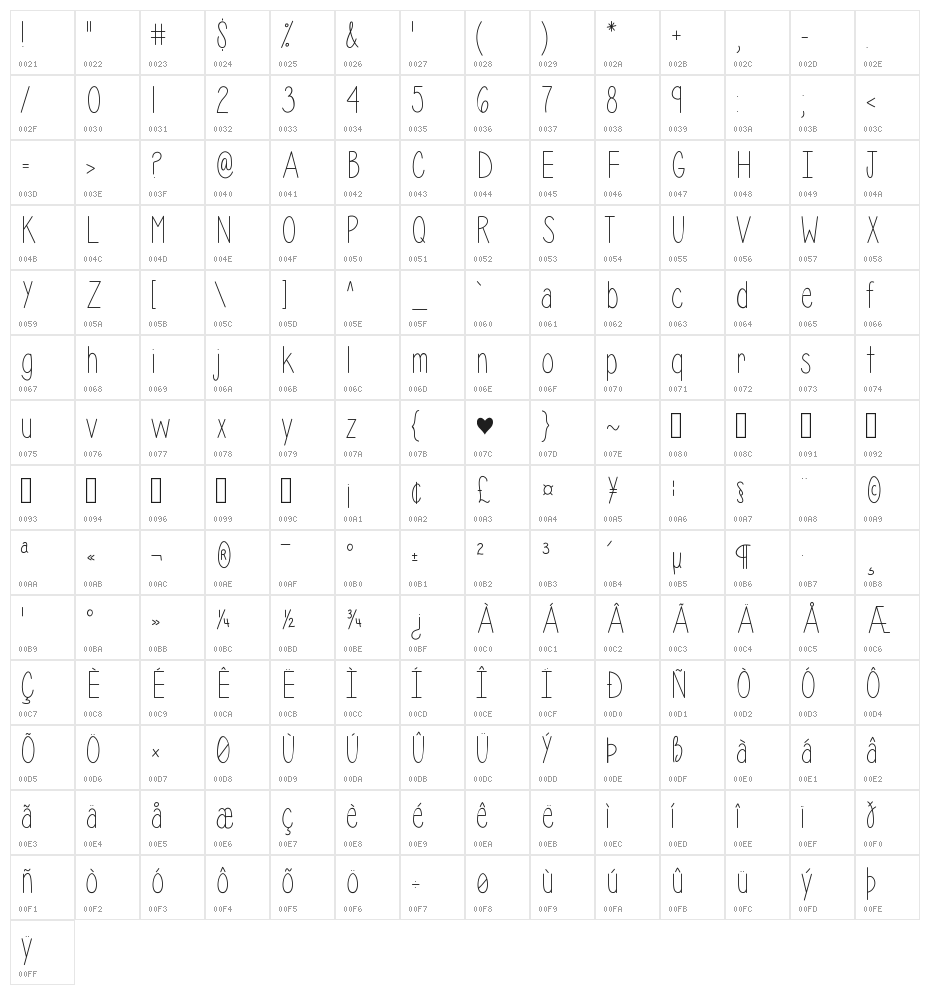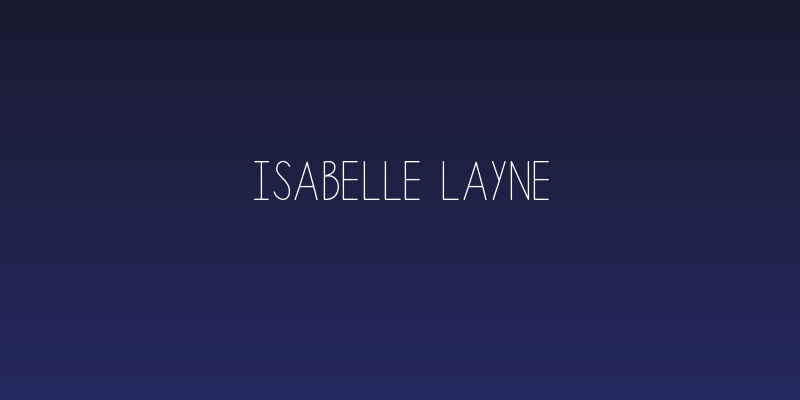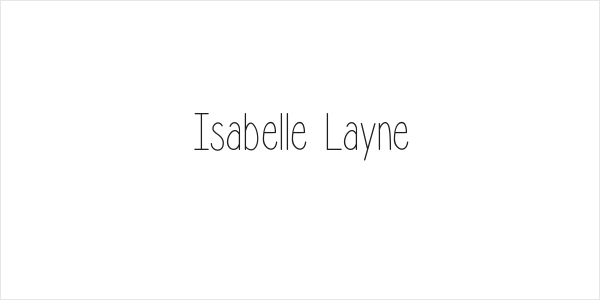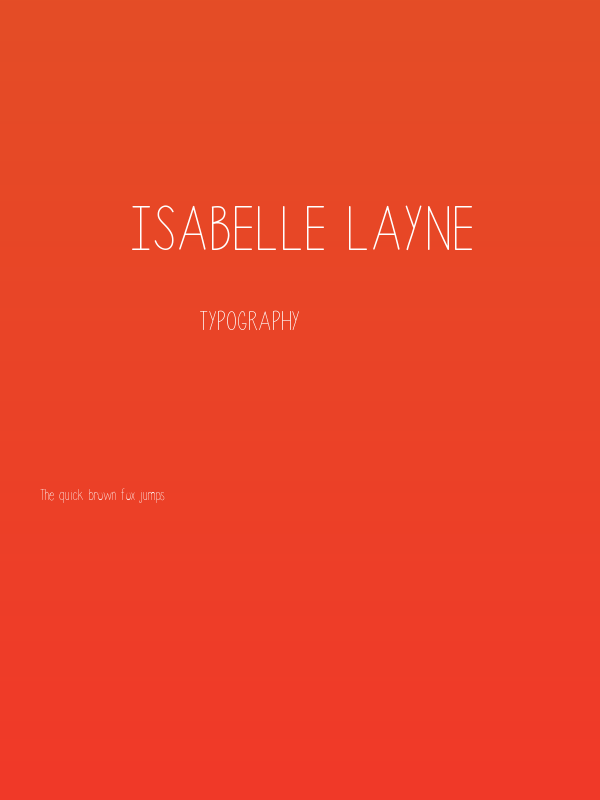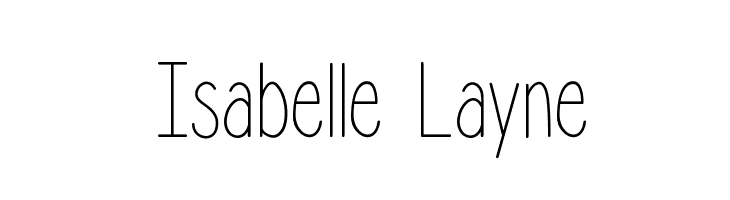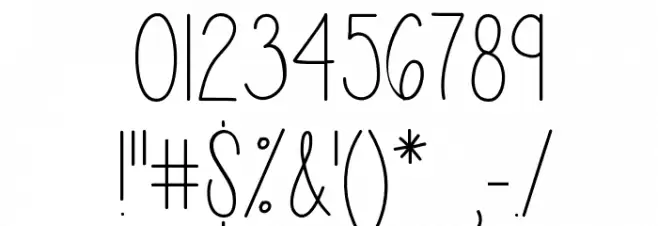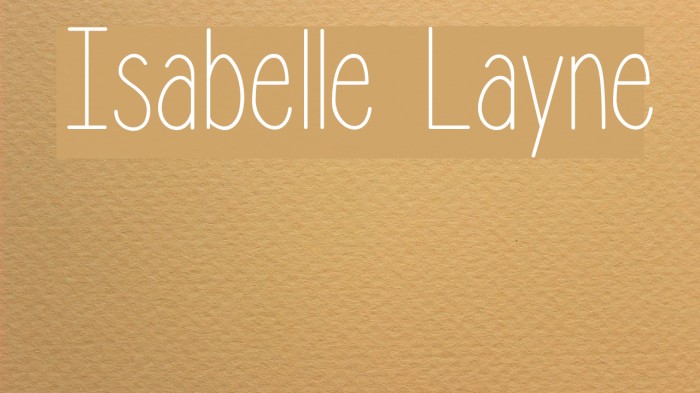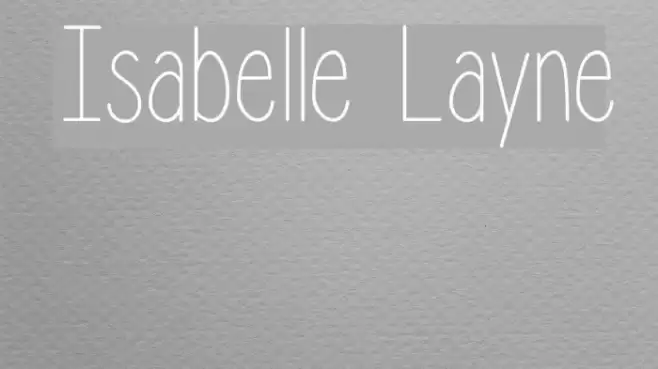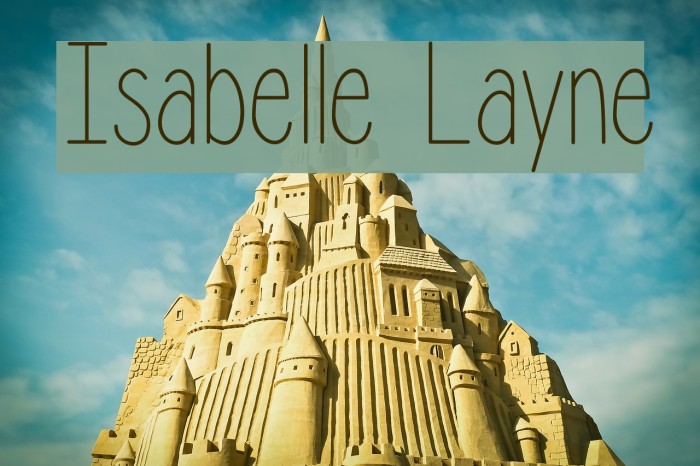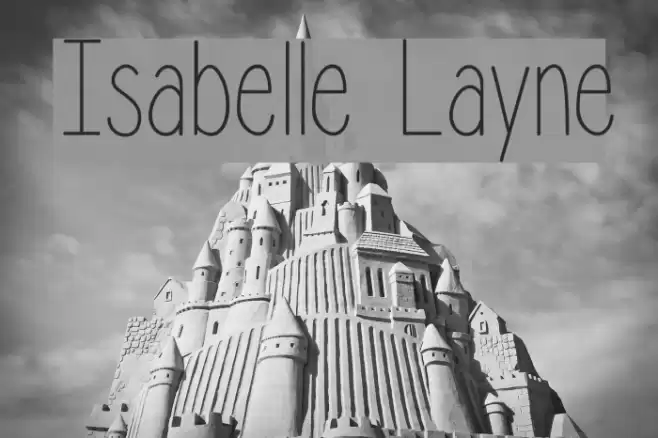
Isabelle Layne Font
Isabelle Layne Description
This font features a clean and modern aesthetic with tall, narrow letters that give it a sleek and contemporary feel. The characters are uniformly thin, contributing to a minimalist look that is both elegant and understated. The uppercase and lowercase letters maintain a consistent height ratio, enhancing readability while preserving a stylish appearance. The numerals are distinct and align well with the overall design, making them suitable for various applications. Special characters are included, maintaining the font's cohesive style. This font's simplicity and clarity make it versatile for a range of design projects.
| Width | Condensed |
| Use Case | Headlines, Body text, Logos |
| Proposed Projects | Ideal for modern branding, editorial design, minimalist posters, and digital interfaces. |